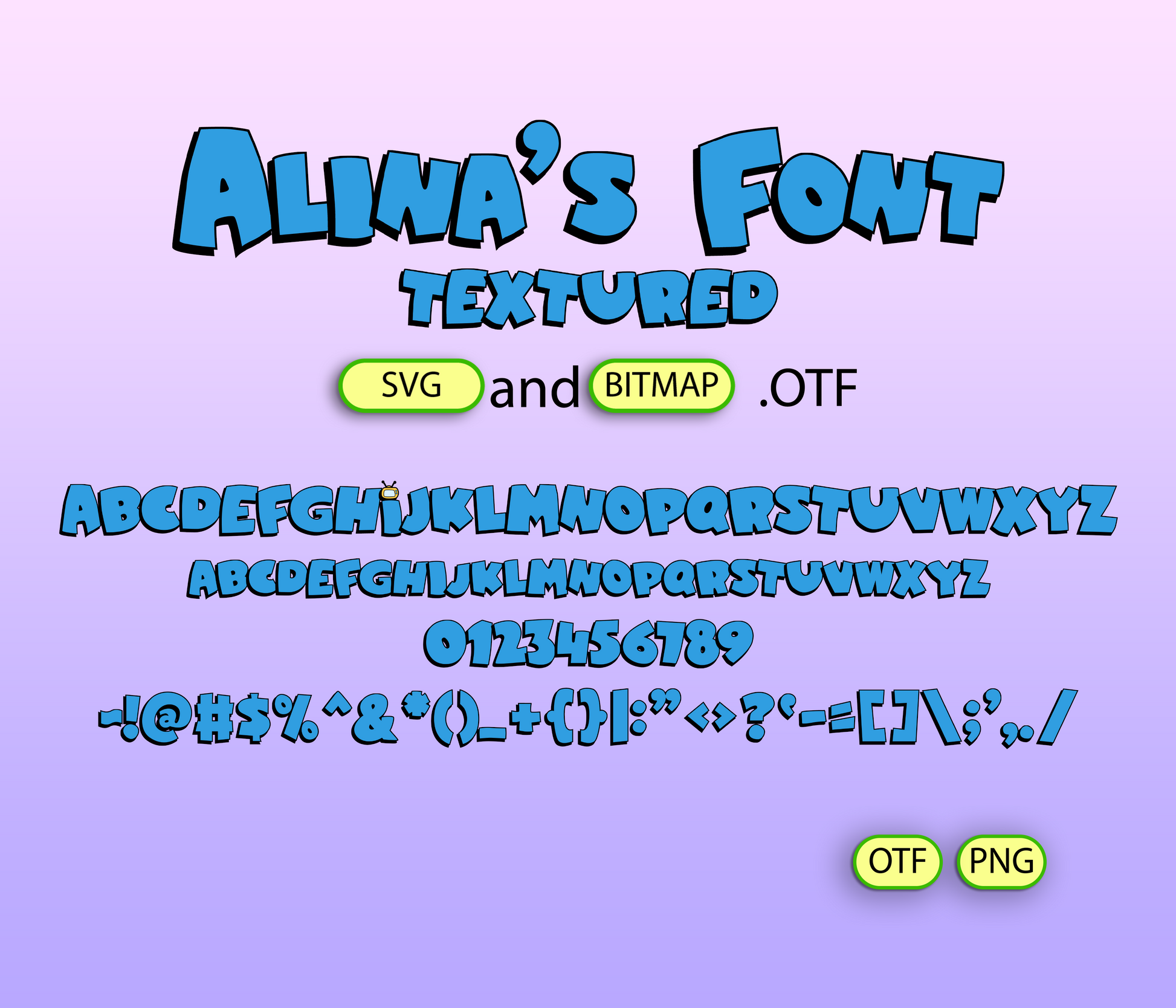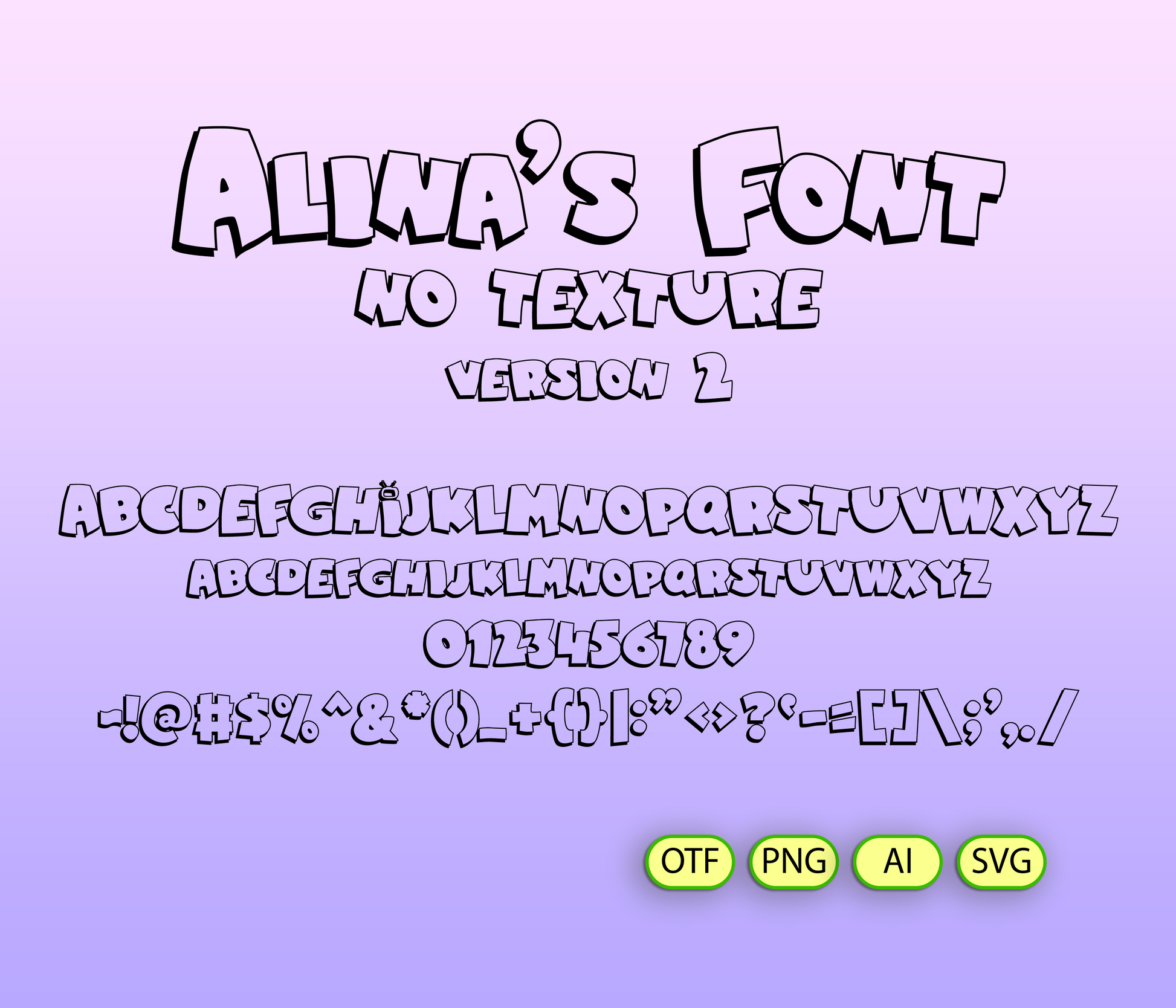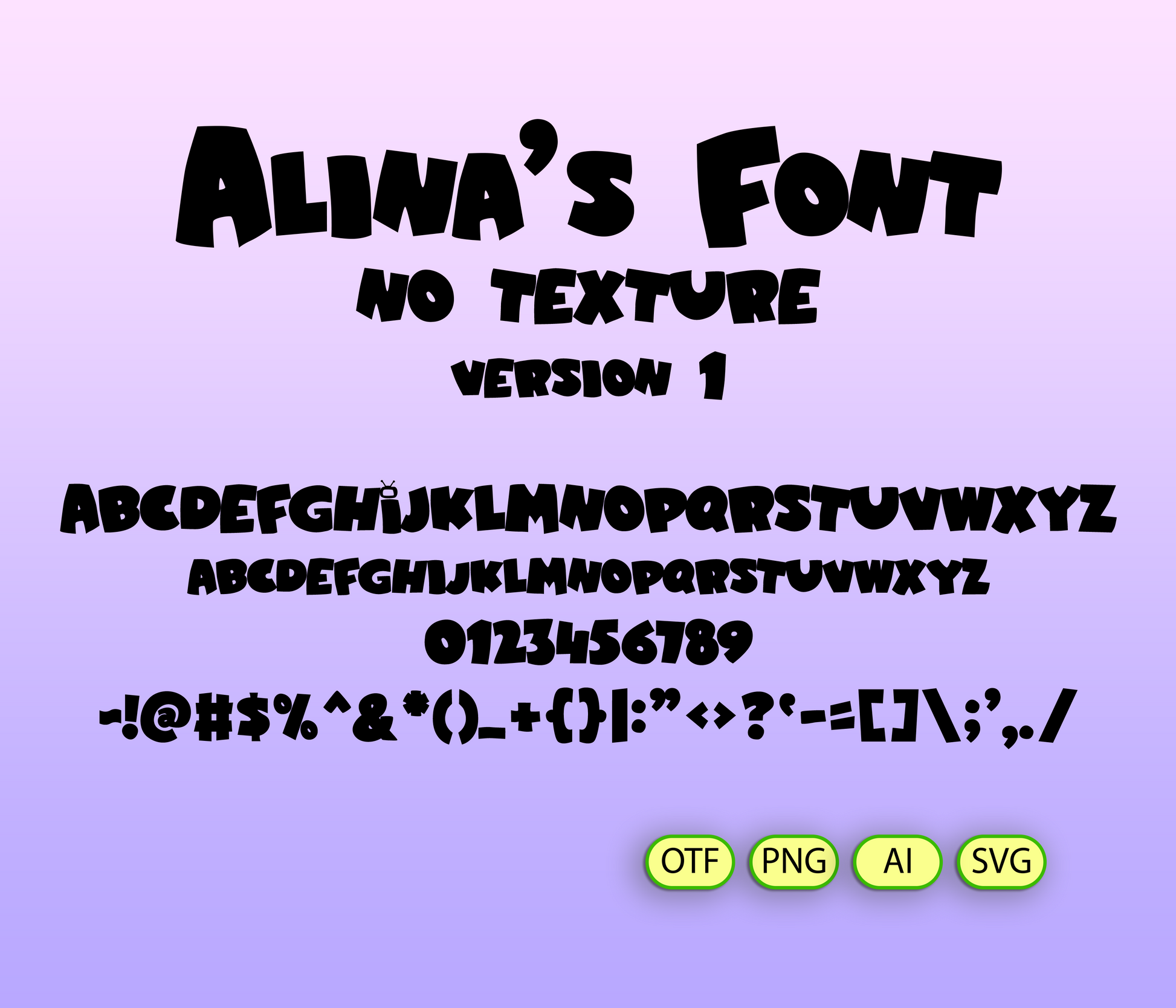
Family Sitcom Comedy Font Textured
Step into the quirky world of modern suburban life with our uniquely designed font, capturing the essence of animated family humor. This distinctive typeface embodies the irreverent spirit and bold character of your favorite dysfunctional cartoon family, making it perfect for projects that aim to capture that signature satirical charm and contemporary wit.
What Font Brings the Laughs?
Our font reflects the show's distinctive style, with playful letterforms that mirror the animated series' bold, characterful approach. It includes a comprehensive character set featuring alphabets, numbers, and special symbols, providing everything needed for your creative projects, from party invitations to fan merchandise.
Feature Highlights
• Textured and Non-Textured Options: Available in both styled and clean versions
• Full Character Set: Complete alphabet, numbers, and special characters